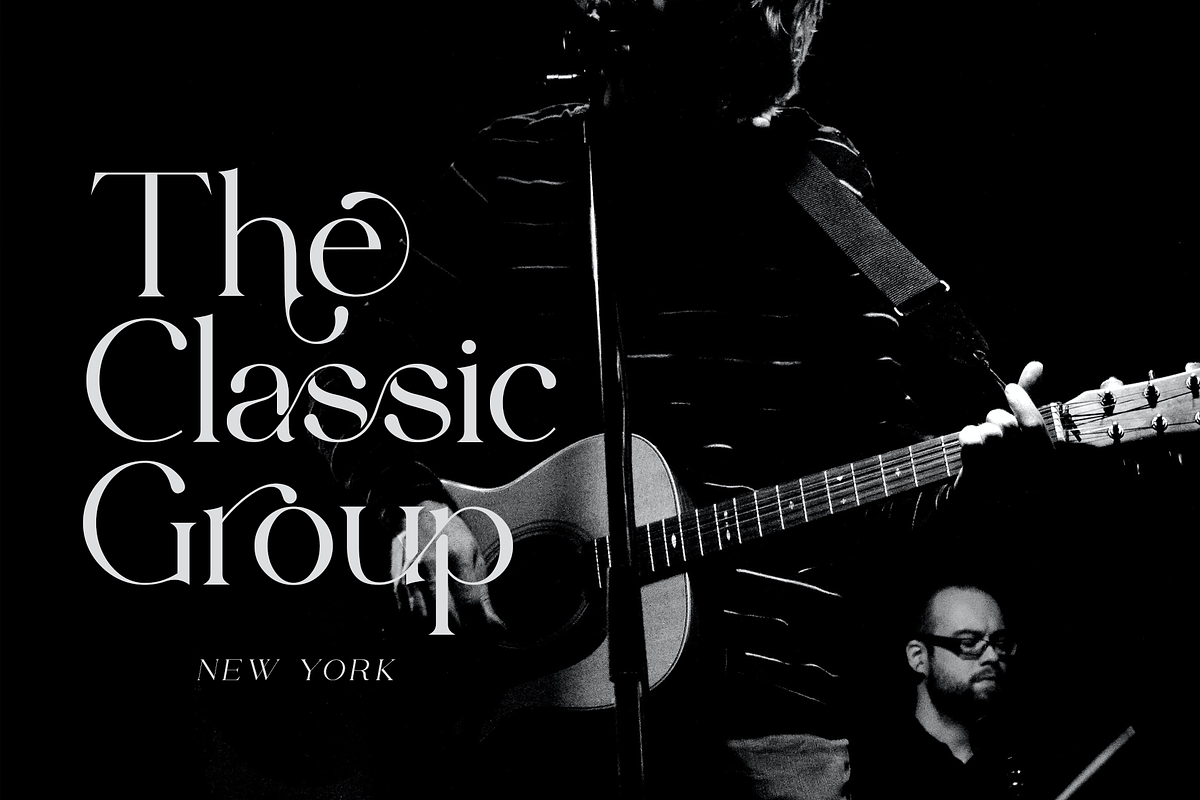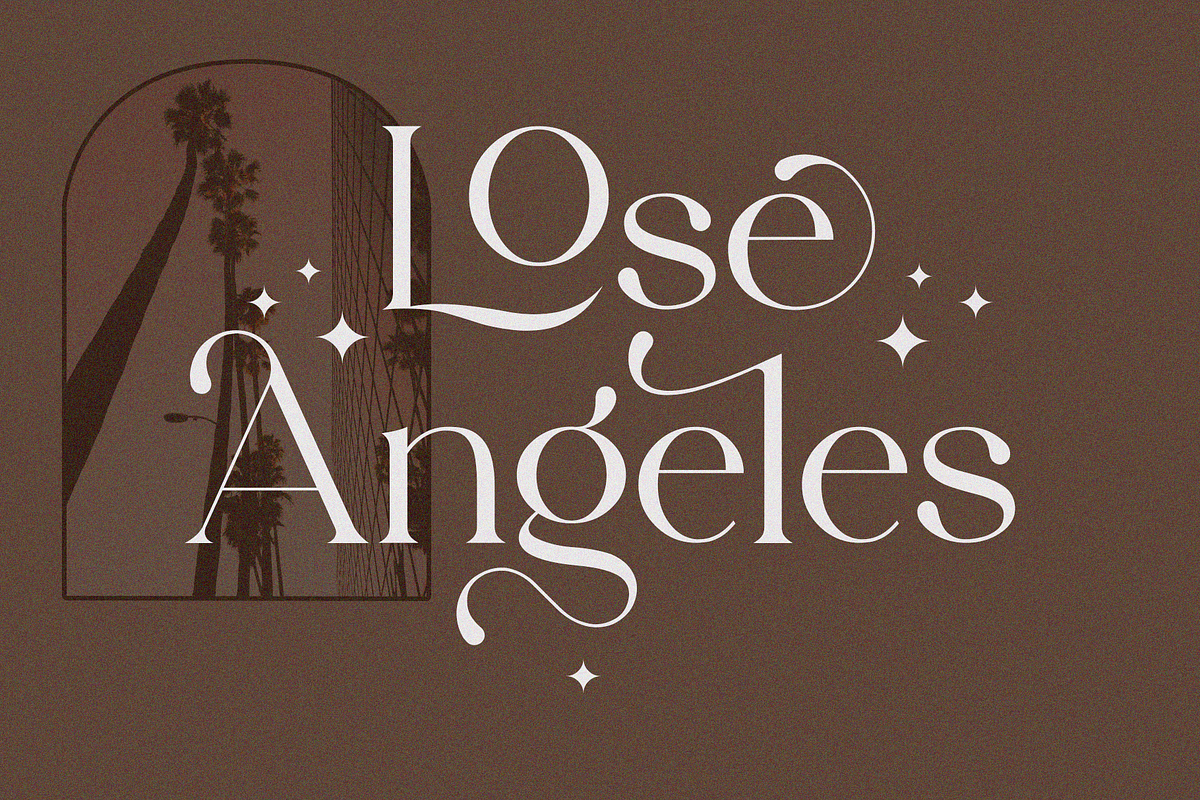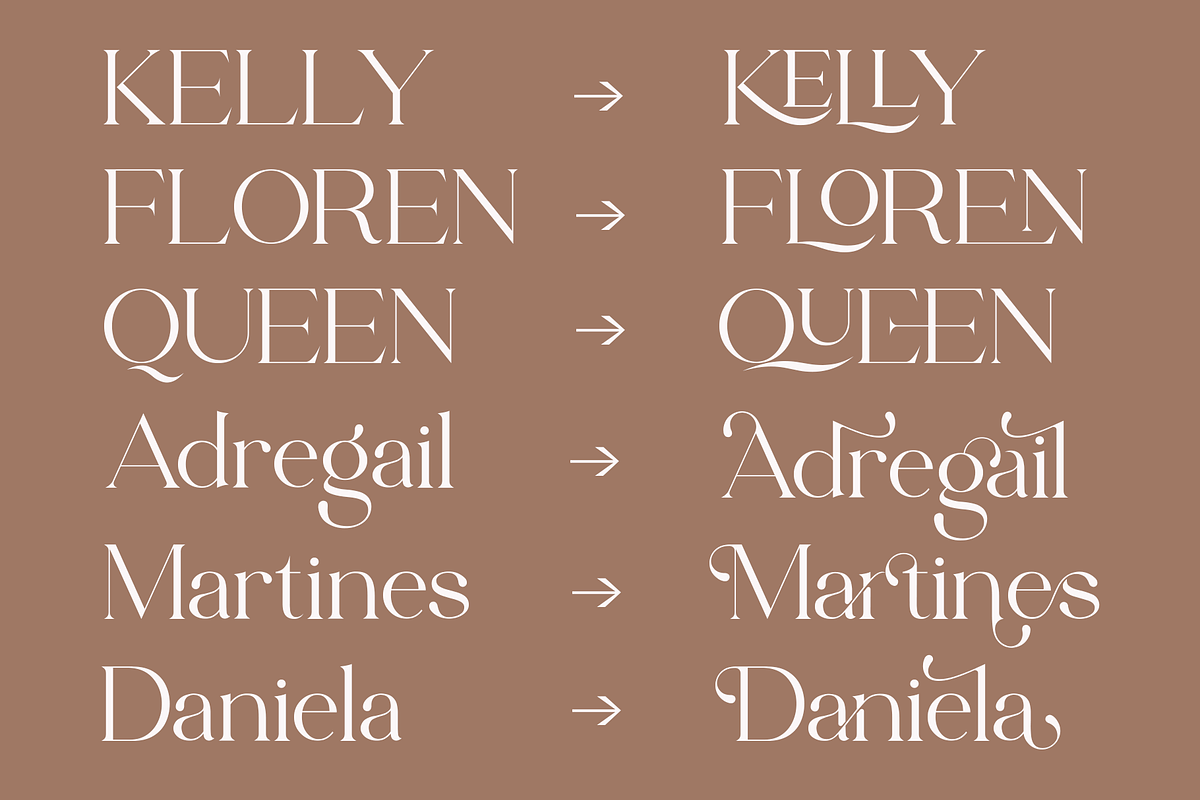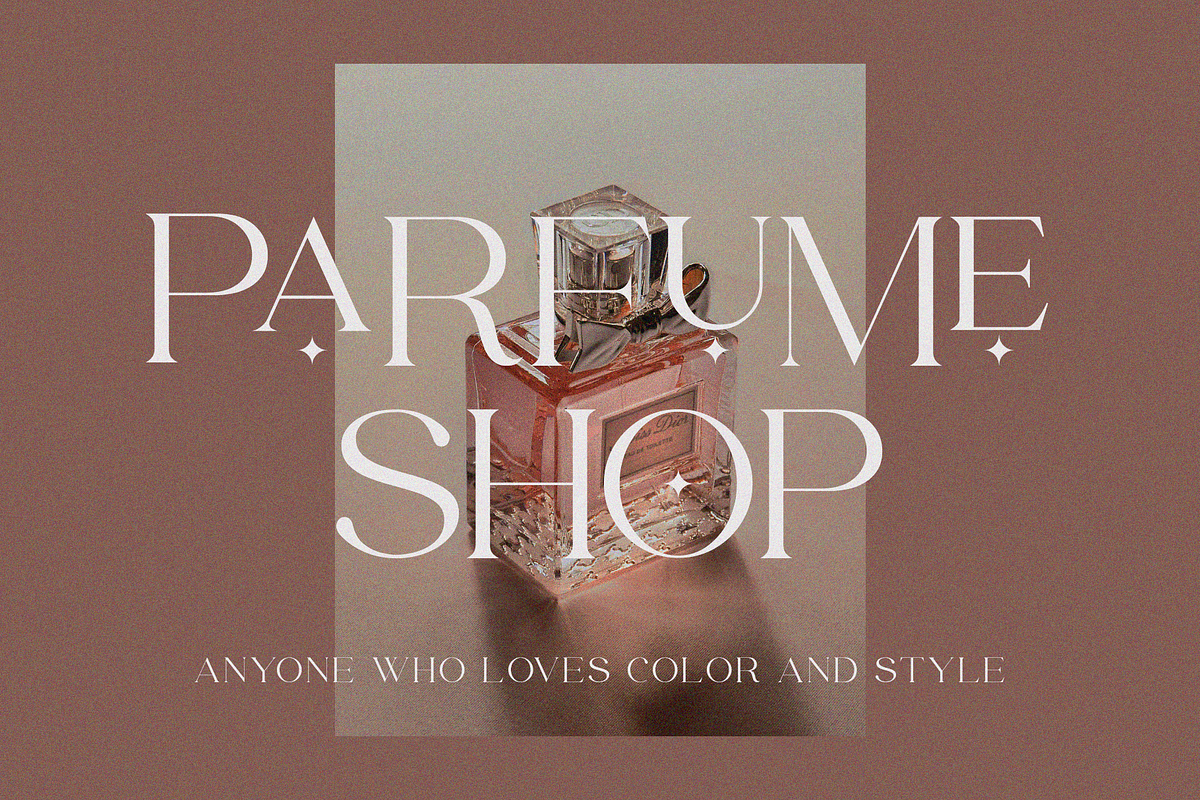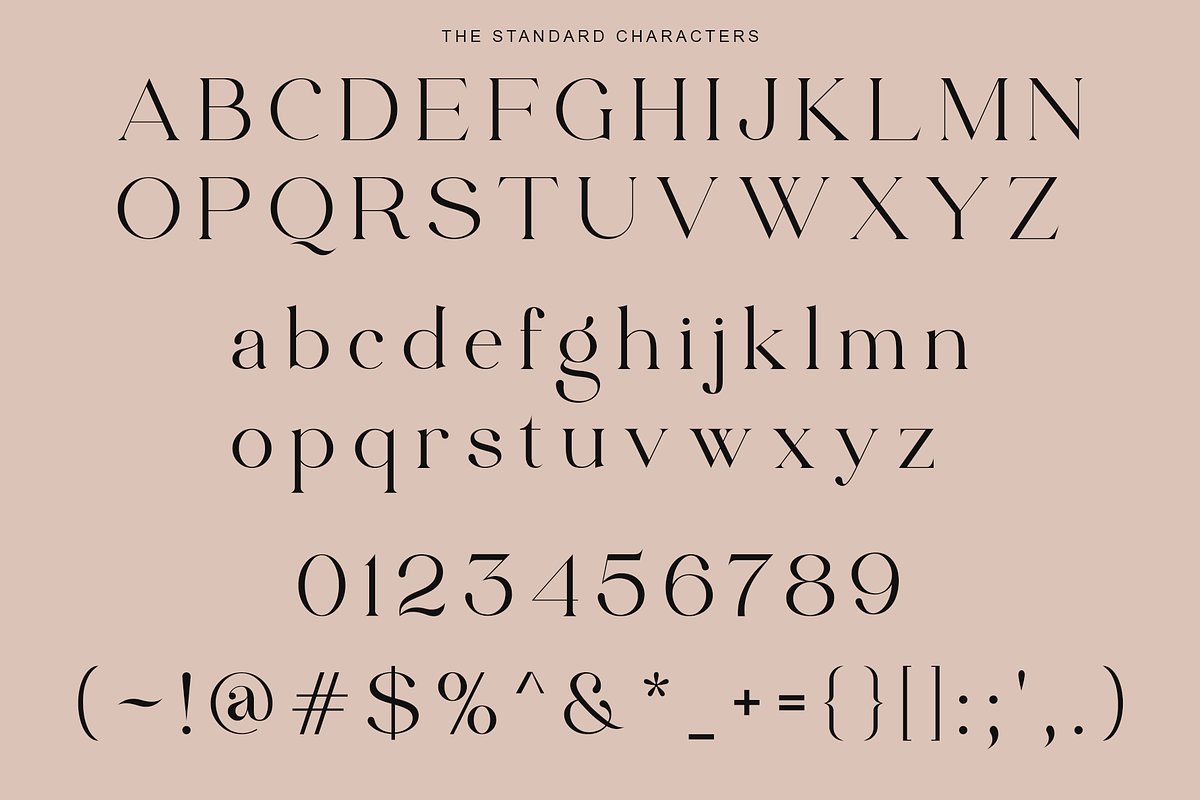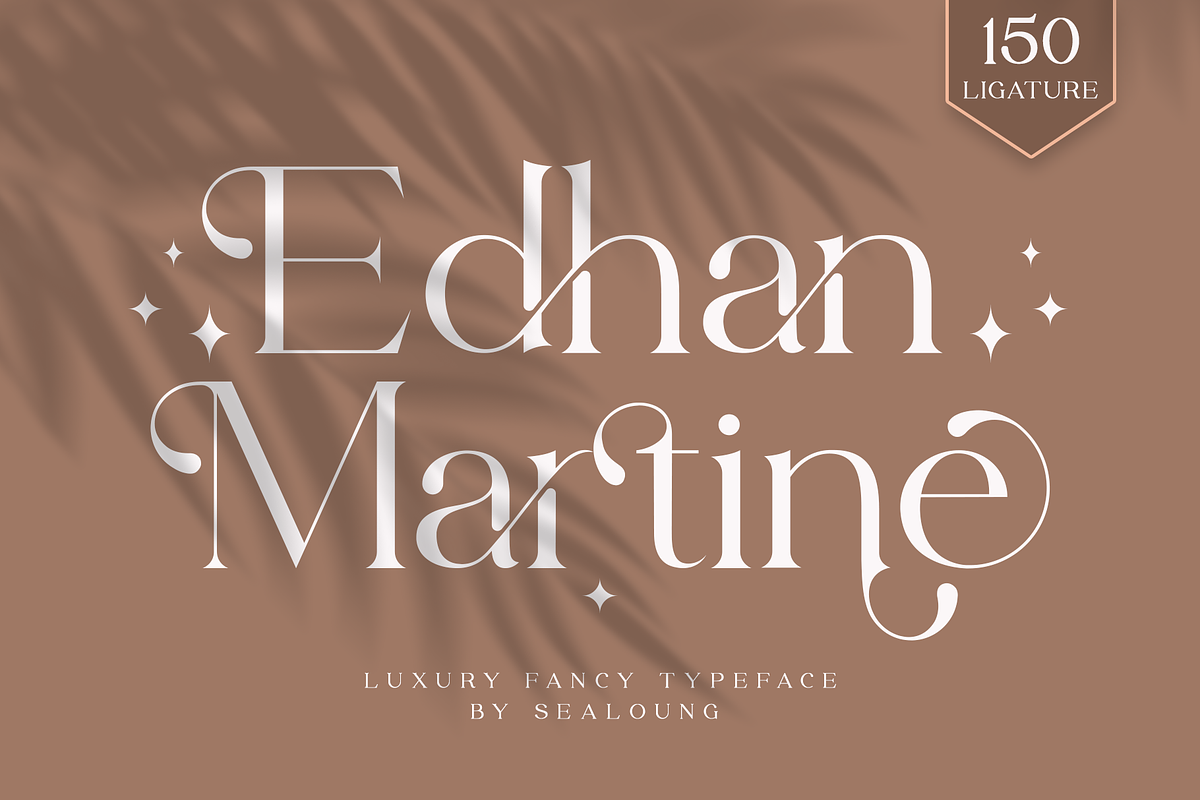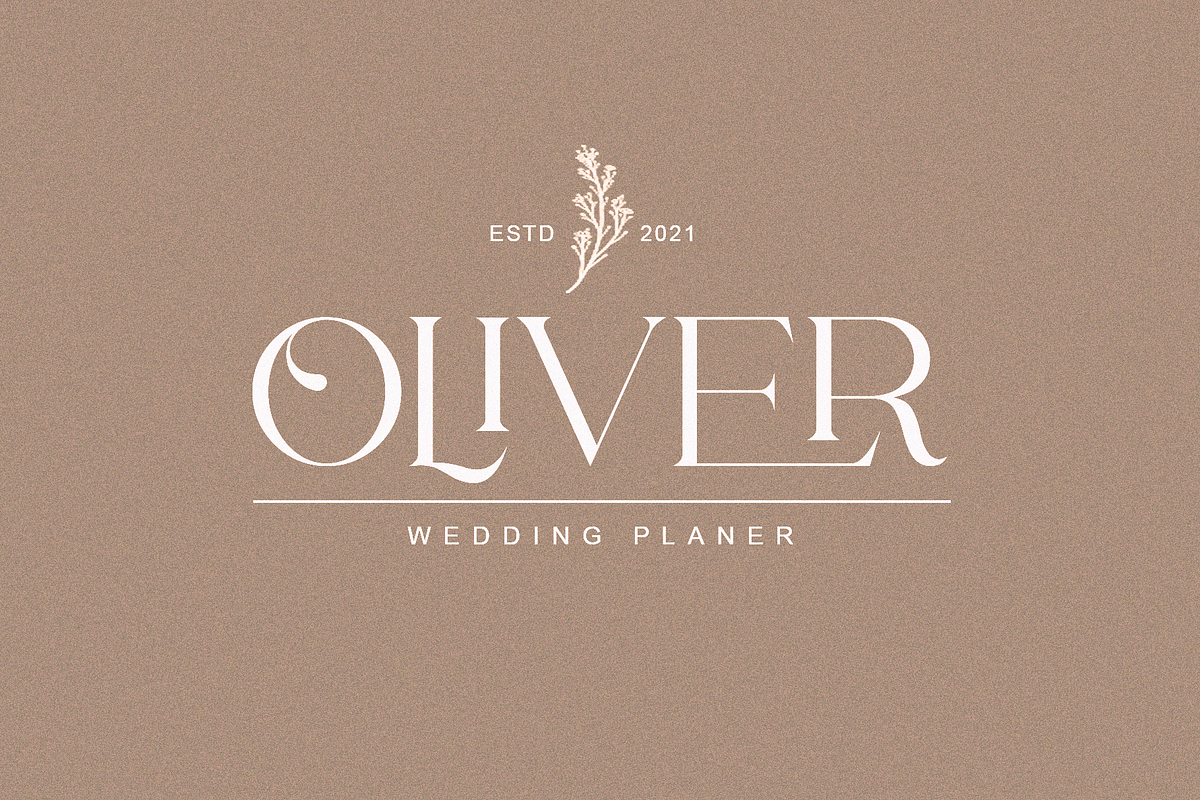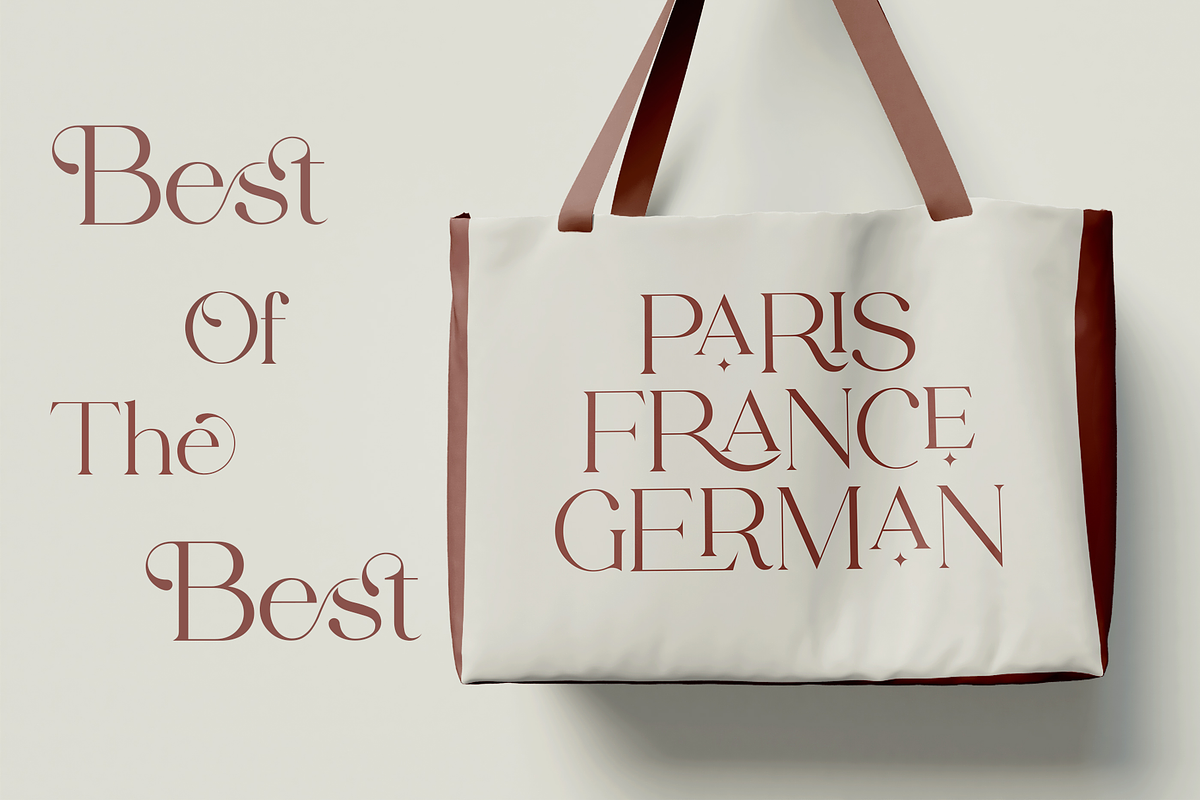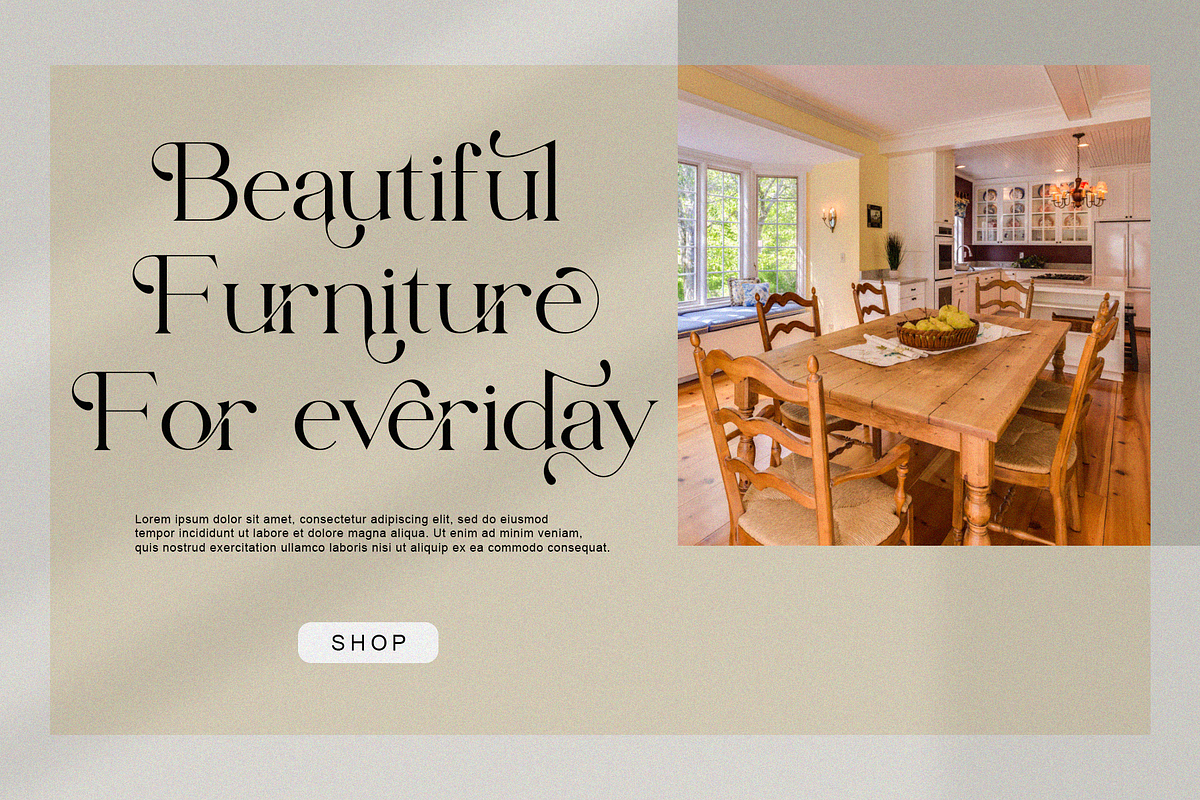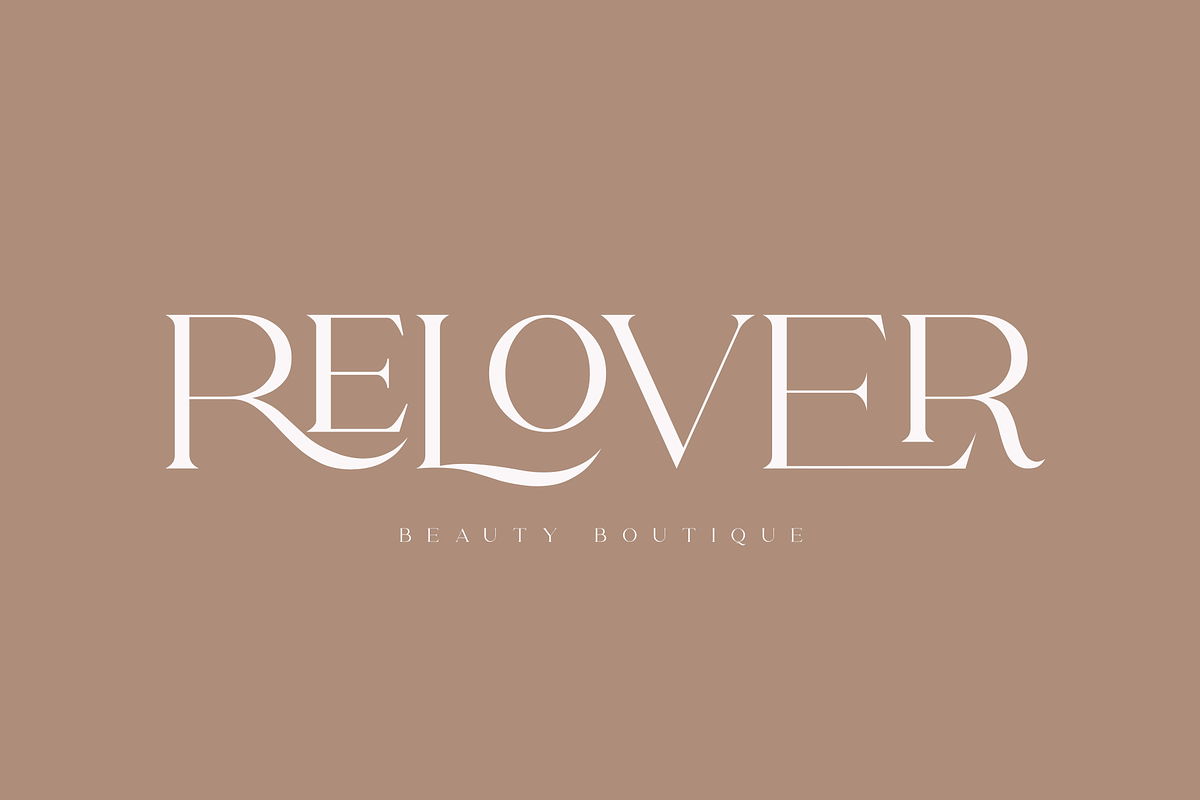
Edhan Martine | 150 Ligatures
Edhan Martine is a unique and very elegant font for brand and logo designs.
Based on our experience as graphic designers working in many companies, we are often asked to design a logo with a unique style but with an elegant shape. So, we tried to brainstorm and come up with this font to get ideas out. It is perfect for BRANDING and LOGO DESIGN. You will get a classy, elegant, and of course unique logo with this font.
To make it look even more unique we created 150 ligatures for you, so you can create the amazing design you want.
Edhan Martine also includes the full set:
- uppercase and lowercase
- multilingual symbol
- number
- punctuation
- stylish alternates